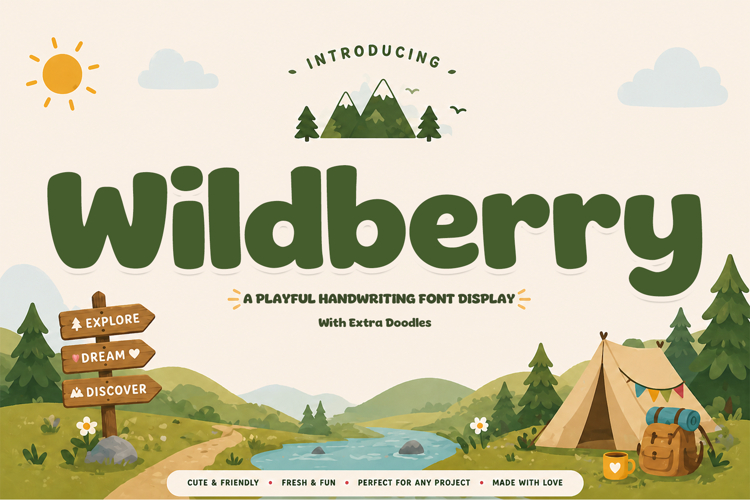
Wildberry
Wildberry is a playful handwriting display font designed to bring a cheerful and friendly feel to any creative project. Featuring soft, rounded letterforms with a bold and approachable style, this font captures a sense of warmth, fun, and natural charm. Its smooth curves and balanced proportions ensure excellent readability while maintaining a lively and expressive character.
Perfect for a wide range of applications including branding, packaging, children’s products, posters, social media graphics, quotes, invitations, apparel, and more. Wildberry stands out in both digital and print designs, making it a versatile choice for projects that aim to feel joyful, fresh, and engaging.
This font comes with extra doodles that complement the overall style, allowing for more creative flexibility and enhanced visual storytelling. Whether used as a main headline or as a decorative element, Wildberry delivers a delightful and memorable impression.